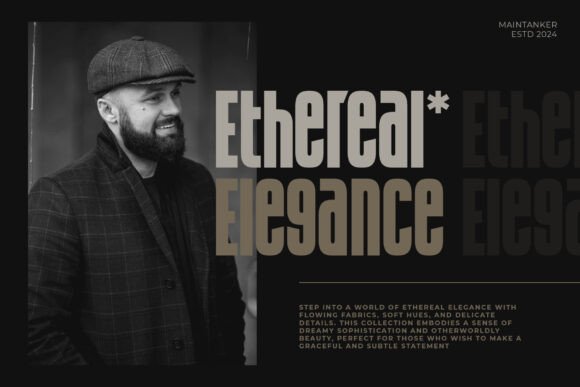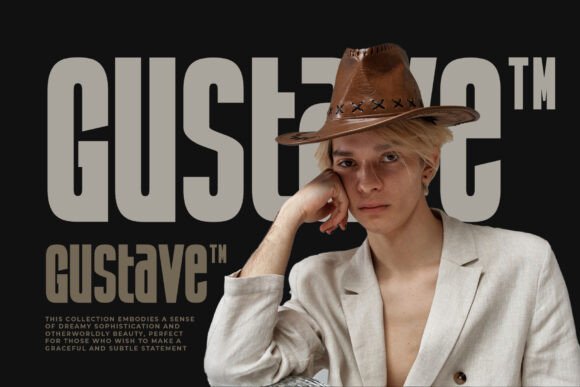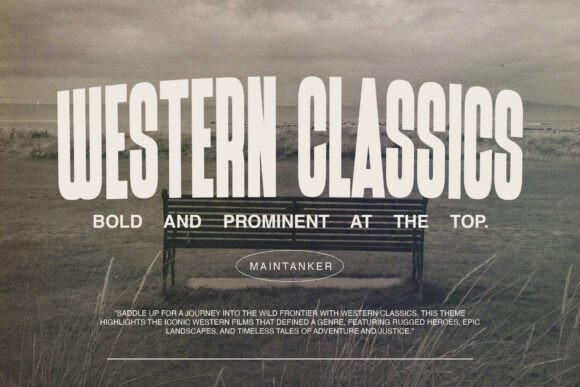
Introduction to Maintanker Font
As designers, we’ve all been there – staring at a blank canvas, trying to spark that elusive creative spark. Sometimes, it’s just a matter of having the right tools at our disposal. For those who’ve been searching for the perfect font to elevate their branding, look no further than the Maintanker Font.
This bold, condensed font is more than just a design resource – it’s a game-changer. Its unique style and versatility make it an ideal choice for logos, headlines, and product packaging. What sets Maintanker apart is its ability to make a statement, even when paired with uppercase and lowercase letters. Whether you’re working on a high-quality design project or simply need a free download to get started, Maintanker Font is sure to deliver.
With its transparent background and support for multiple languages, Maintanker Font is the ultimate creative companion. Whether you’re a seasoned pro or just starting out, this valuable resource is sure to become a go-to favorite.
Key Features of Maintanker Font
- Transparent background allows for seamless integration into various design elements.
- Designed with a unique aesthetic, Maintanker Font offers a distinctive touch to any creative project.
- Features a clear and legible design, making it suitable for a wide range of applications, from print materials to digital displays.
Honest Review: Maintanker Font
I recently stumbled upon the Maintanker Font and was excited to give it a try for my latest creative project. As a designer, I’m always on the lookout for high-quality design resources that can help bring my ideas to life.
- ✨ The Maintanker Font has a unique, industrial feel that I haven’t seen before in many free downloads.
- ✨ The transparent background makes it easy to use in a variety of creative contexts, from logos to infographics.
- ✨ The font is incredibly versatile, with a wide range of weights and styles to choose from.
- ⚠️ The Maintanker Font may not be suitable for every design project, as it has a distinctly industrial feel that may not be to every designer’s taste.
- ⚠️ Some users may find the font to be a bit too bold or overbearing, so be sure to use it judiciously in your designs.
Overall, I’m really impressed with the Maintanker Font. It’s a high-quality design resource that’s perfect for designers looking to add a unique touch to their creative projects. With its transparent background and wide range of styles, it’s a versatile font that’s sure to come in handy.
The Maintanker Font is a high-quality, free download ideal for creative projects that require a unique and professional touch. With its transparent background, this font is perfect for adding a touch of sophistication to your designs.
Tips for Getting the Most Out of Maintanker Font
1. Experiment with different font sizes and styles to create visual interest.
2. Use the transparent background to create a sense of depth and dimensionality.
3. Combine the Maintanker Font with other design elements to create a cohesive look.
Common Use Cases for Maintanker Font
The Maintanker Font is perfect for:
1. Creating business cards and letterheads.
2. Designing brochures and flyers.
3. Adding a touch of sophistication to social media graphics.